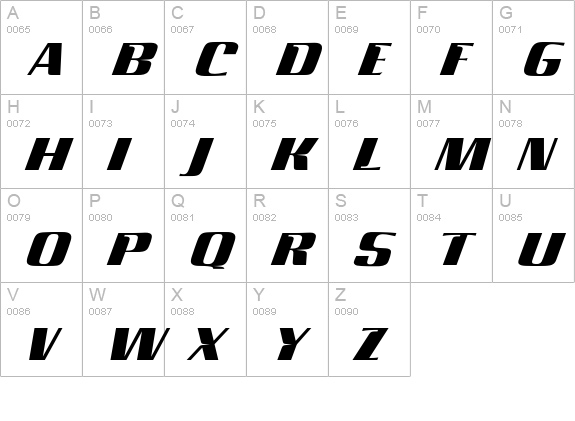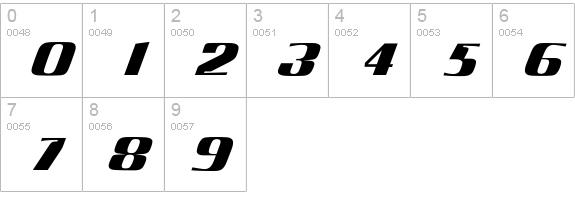
Concorde Font Details
Concorde font is a versatile and elegant typeface that exudes sophistication and modernity. With its sleek lines and classic design, Concorde is perfect for a wide range of projects, from branding to editorial design. The font's clean and minimalist aesthetic makes it a timeless choice for both print and digital applications. What sets Concorde font apart is not only its aesthetic appeal but also its accessibility. This high-quality font is available for free download at FontsMarket.com, allowing designers and creatives to access its beauty without any cost. Whether you're working on a professional project or a personal passion project, Concorde font is a valuable addition to your font library. Embrace the timeless elegance of Concorde font and elevate your designs with its refined style. Download it for free today and add a touch of sophistication to your next creative endeavor.